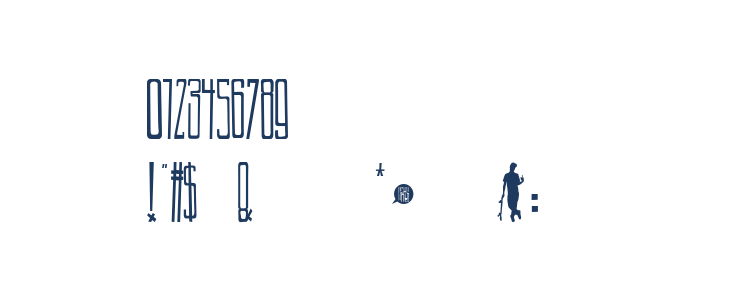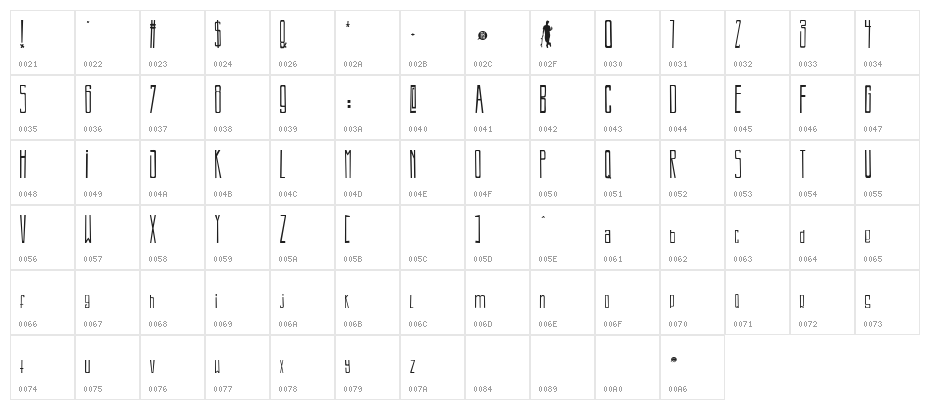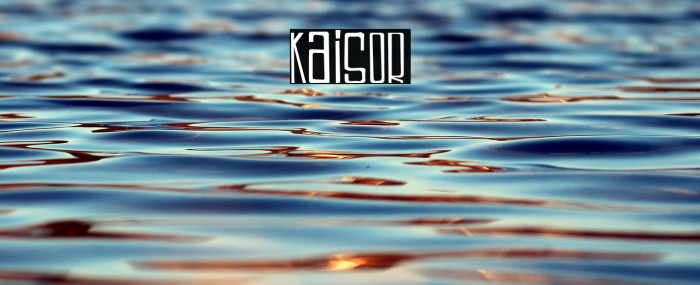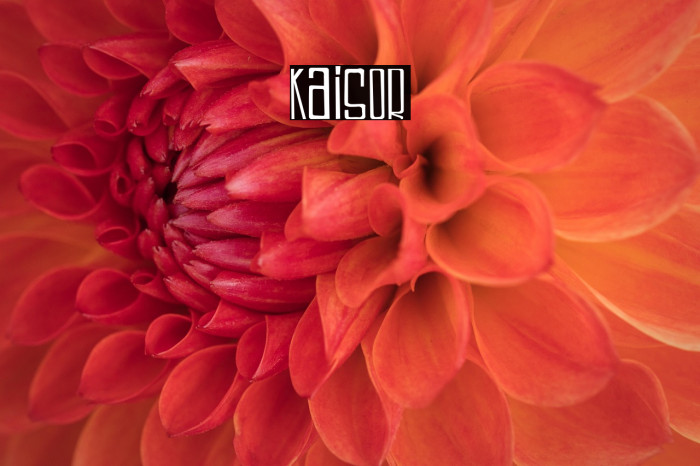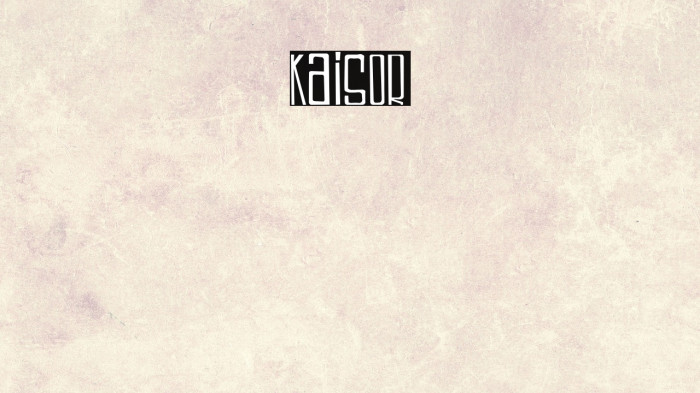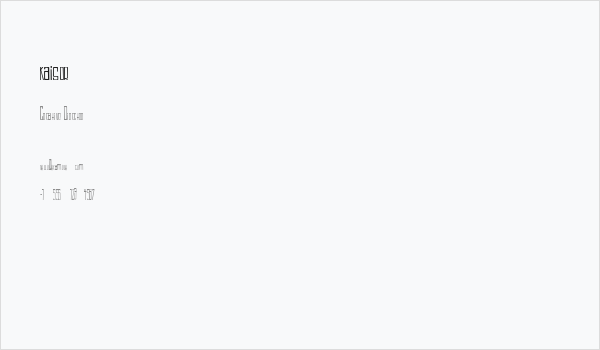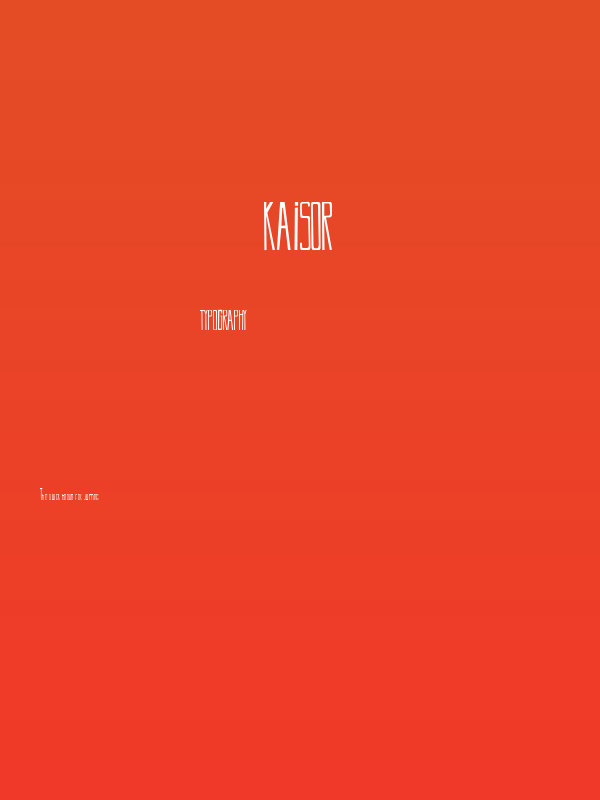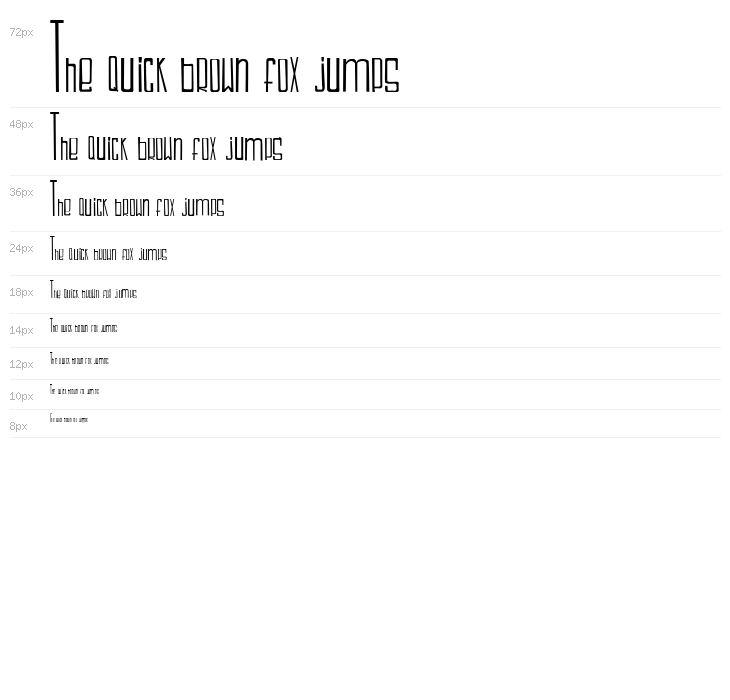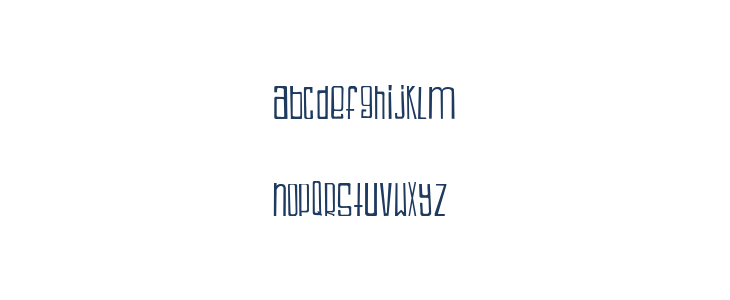
kaisor Font
kaisor Description
This font features a unique and elongated design, characterized by its tall, narrow letterforms and sharp edges. The uppercase letters are particularly striking, with a vertical emphasis that gives them a commanding presence. The lowercase letters maintain the same narrow structure, creating a cohesive look across the typeface. Numbers and special characters follow the same stylistic cues, ensuring consistency throughout. The font's distinct style makes it suitable for projects that require a modern and edgy aesthetic. Its high contrast and condensed width make it stand out, while the tight character spacing adds to its bold appearance.
| Proposed Projects | Ideal for posters, album covers, branding, and any project needing a modern, edgy look. |